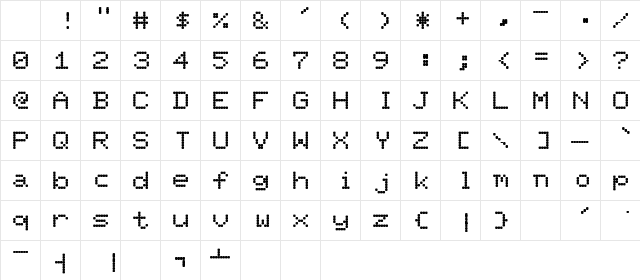
Complete PALMER Regular glyph index. Displaying only characters natively supported by PALMER Regular font.
PALMER is a composed and adaptable typeface that performs quietly and consistently across a wide range of design contexts.